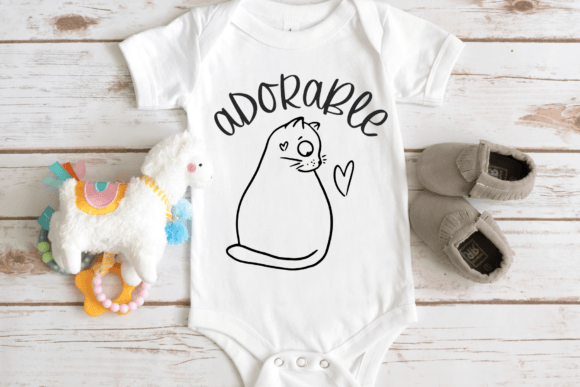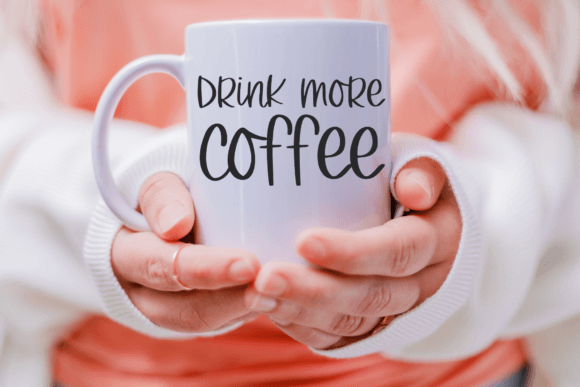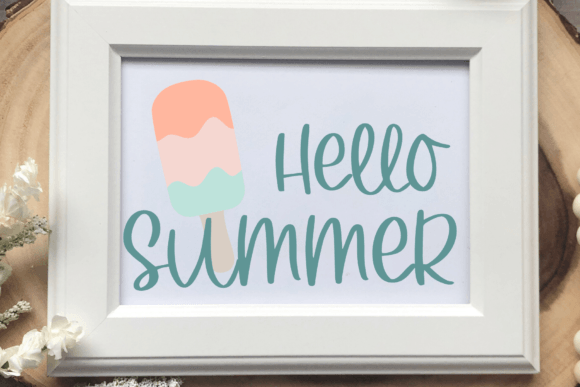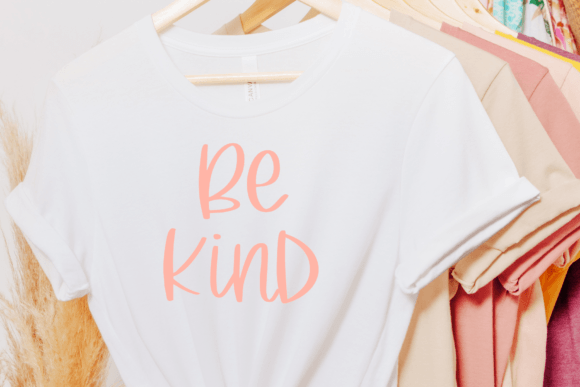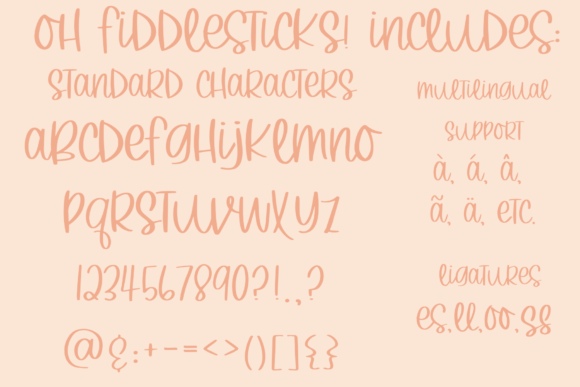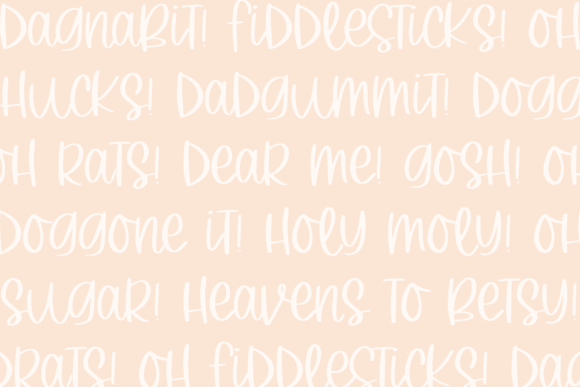
Introduction to Oh Fiddlesticks Font
Oh, Fiddlesticks is a cute handwritten font that is perfect for fun logos, greeting cards, t-shirt designs, stickers, social media, and crafts.
Key Features of Oh Fiddlesticks Font